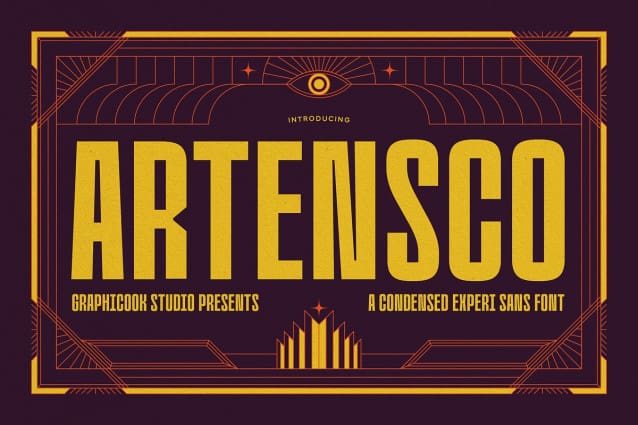
Artensco Font
Artensco Font, presents an experimental condensed font featuring uppercase and lowercase letters, multilingual support, numbers, and punctuation. Ideal for logotypes, headlines, posters, or packaging designs.
Artensco is perfect for headlines, logotypes, magazines, packaging, quotes, movies, games, cover albums, book covers, and flyers, it’s a perfect solution for creating eye-catching designs that stand out in any context.